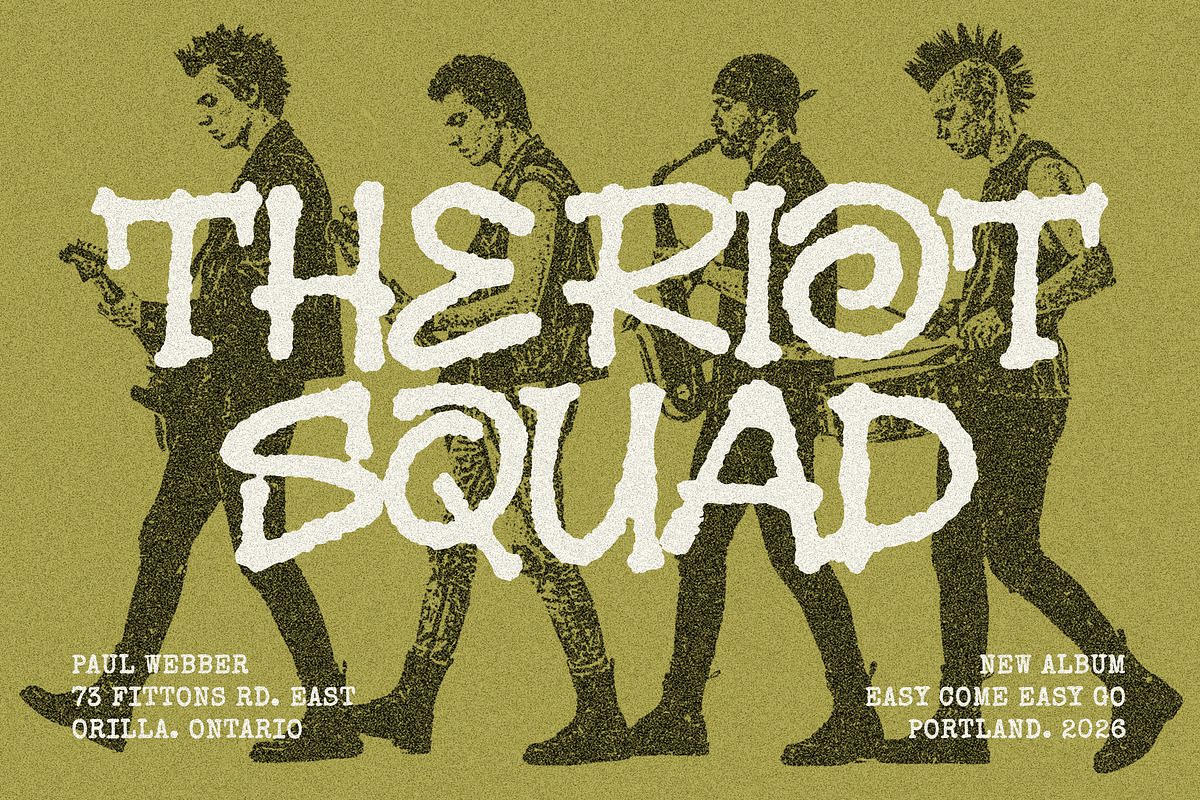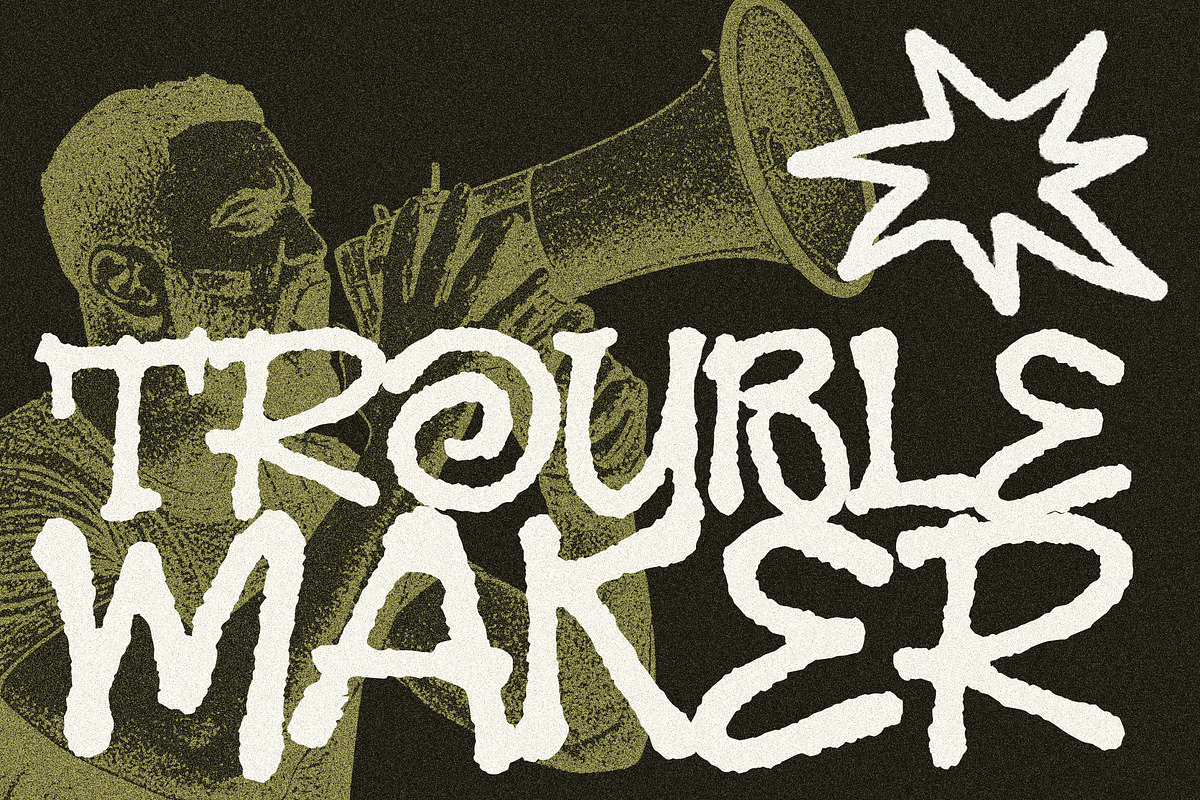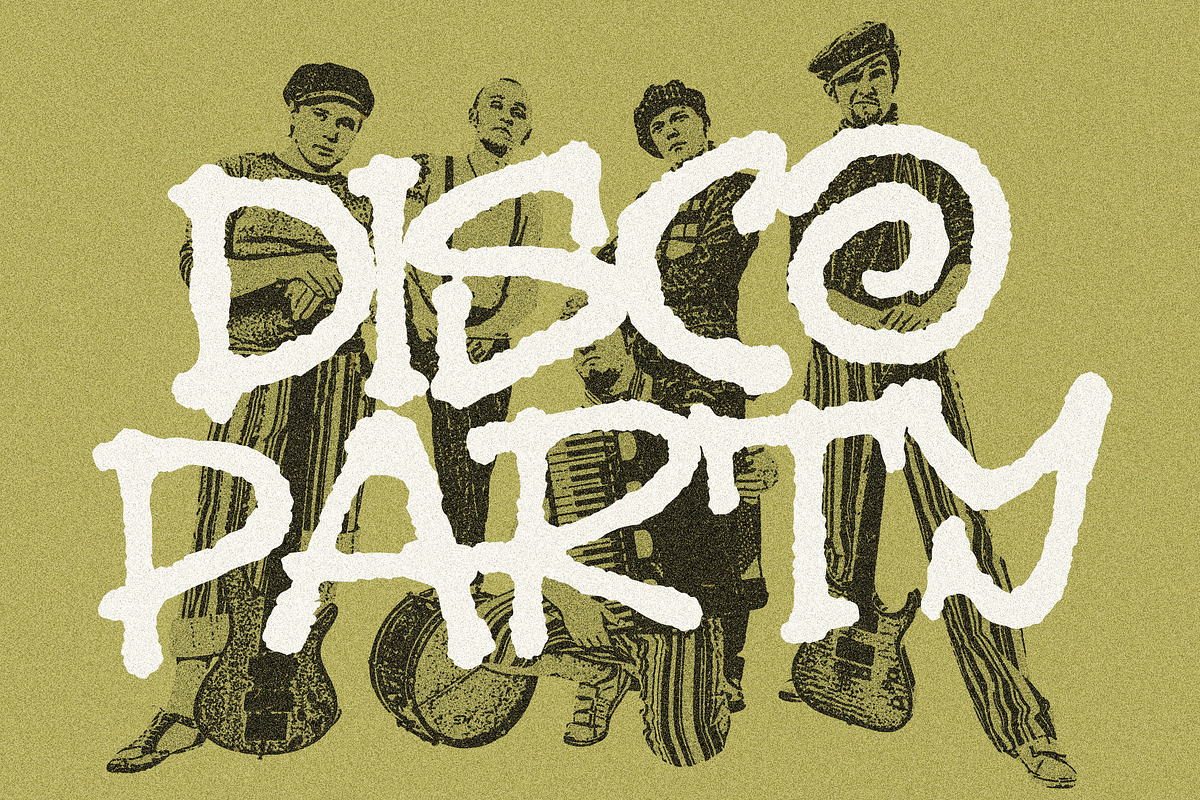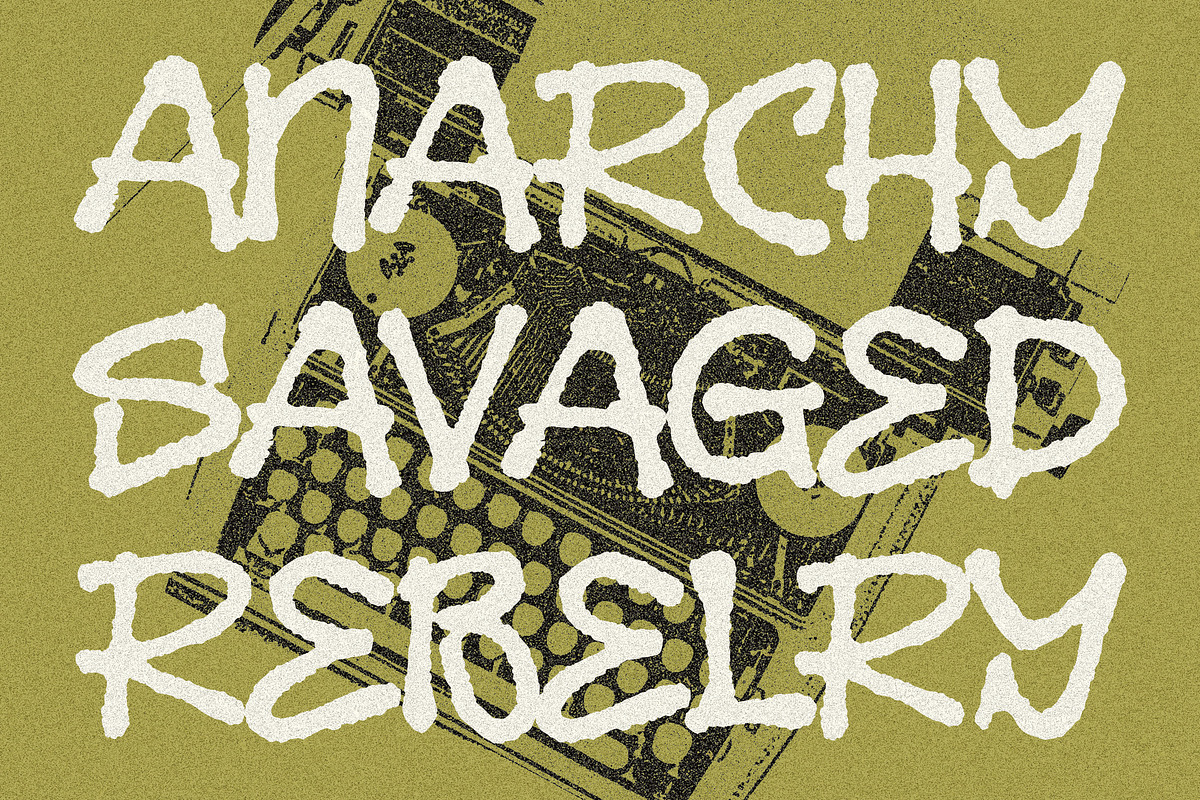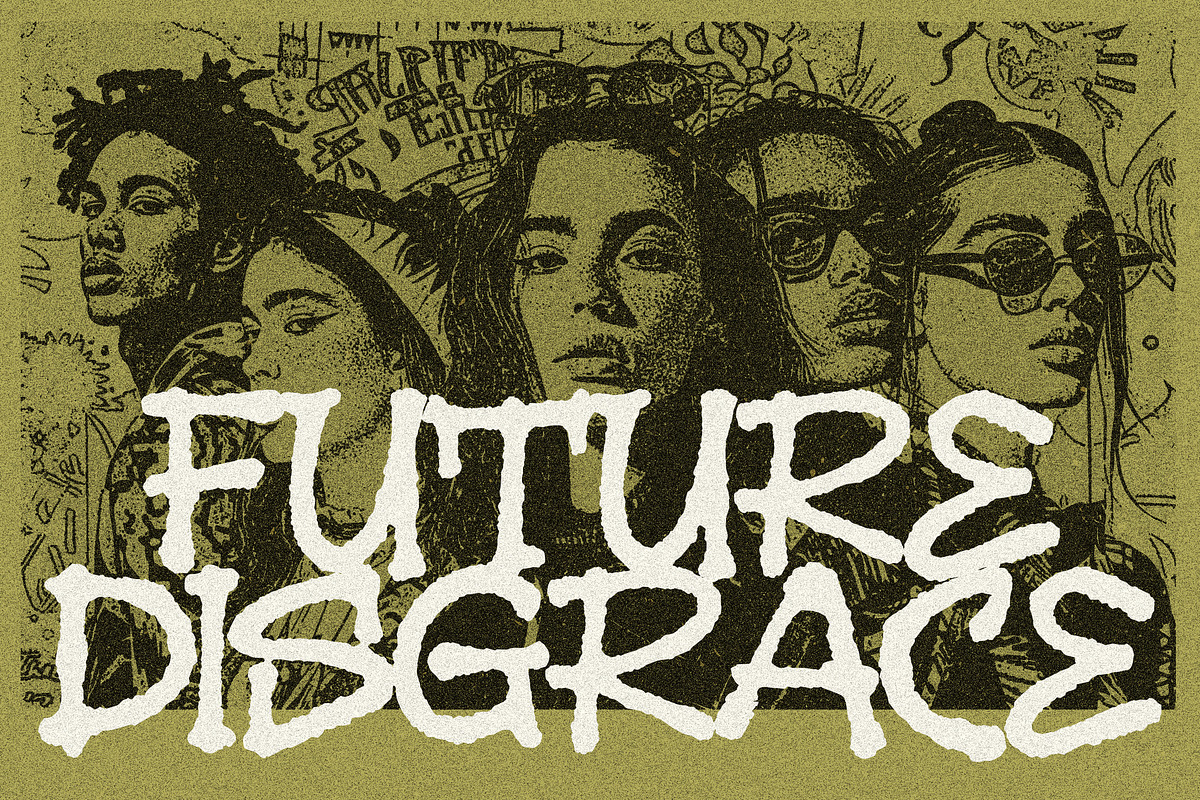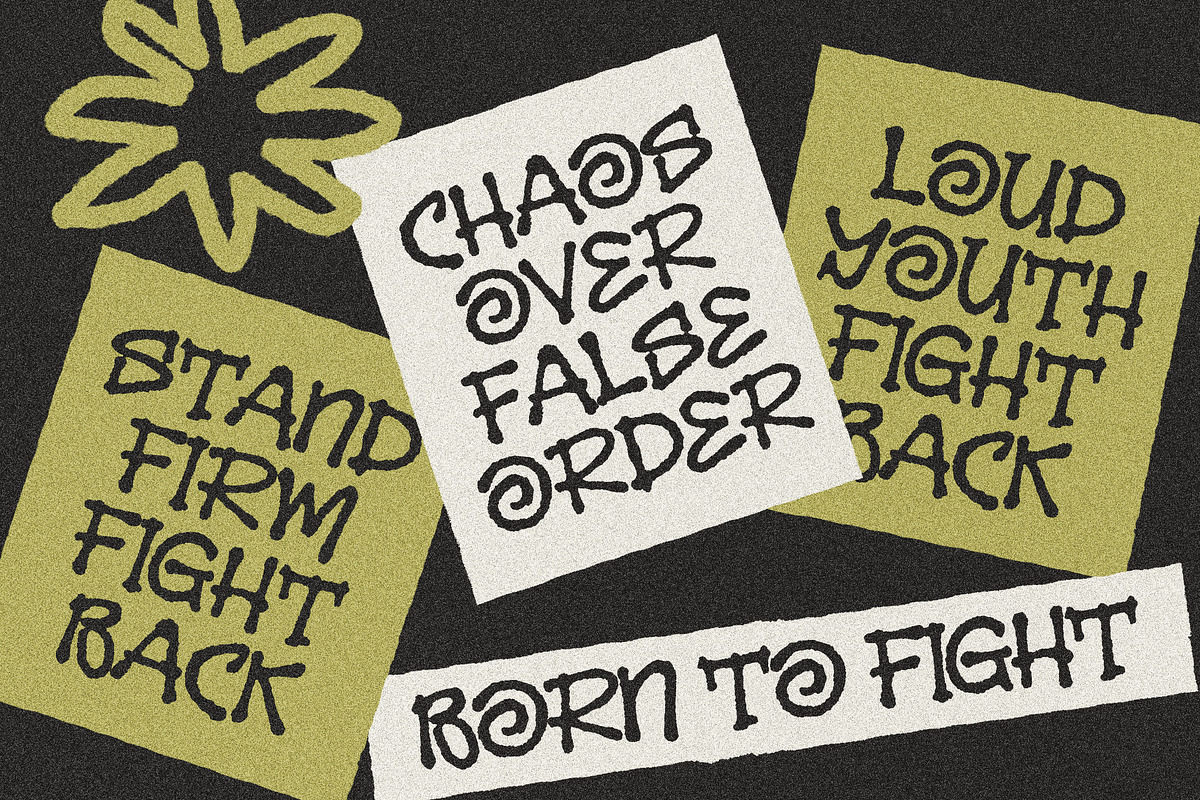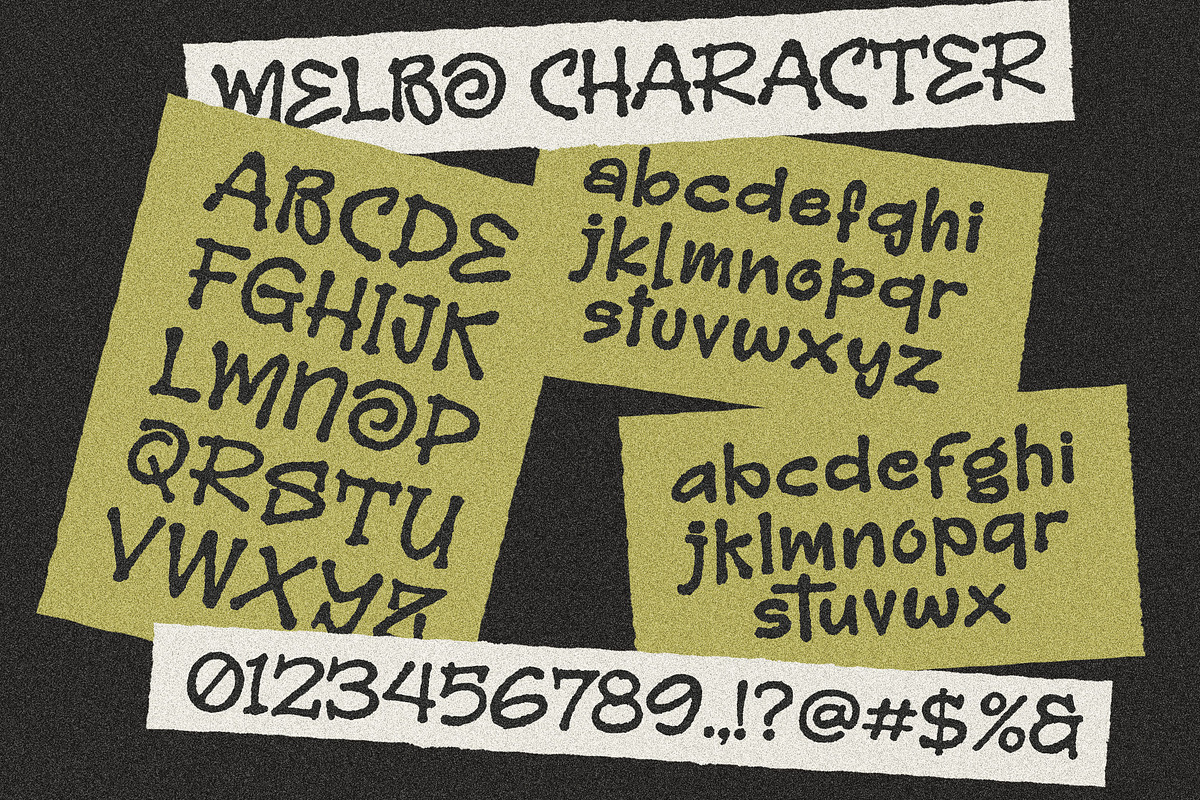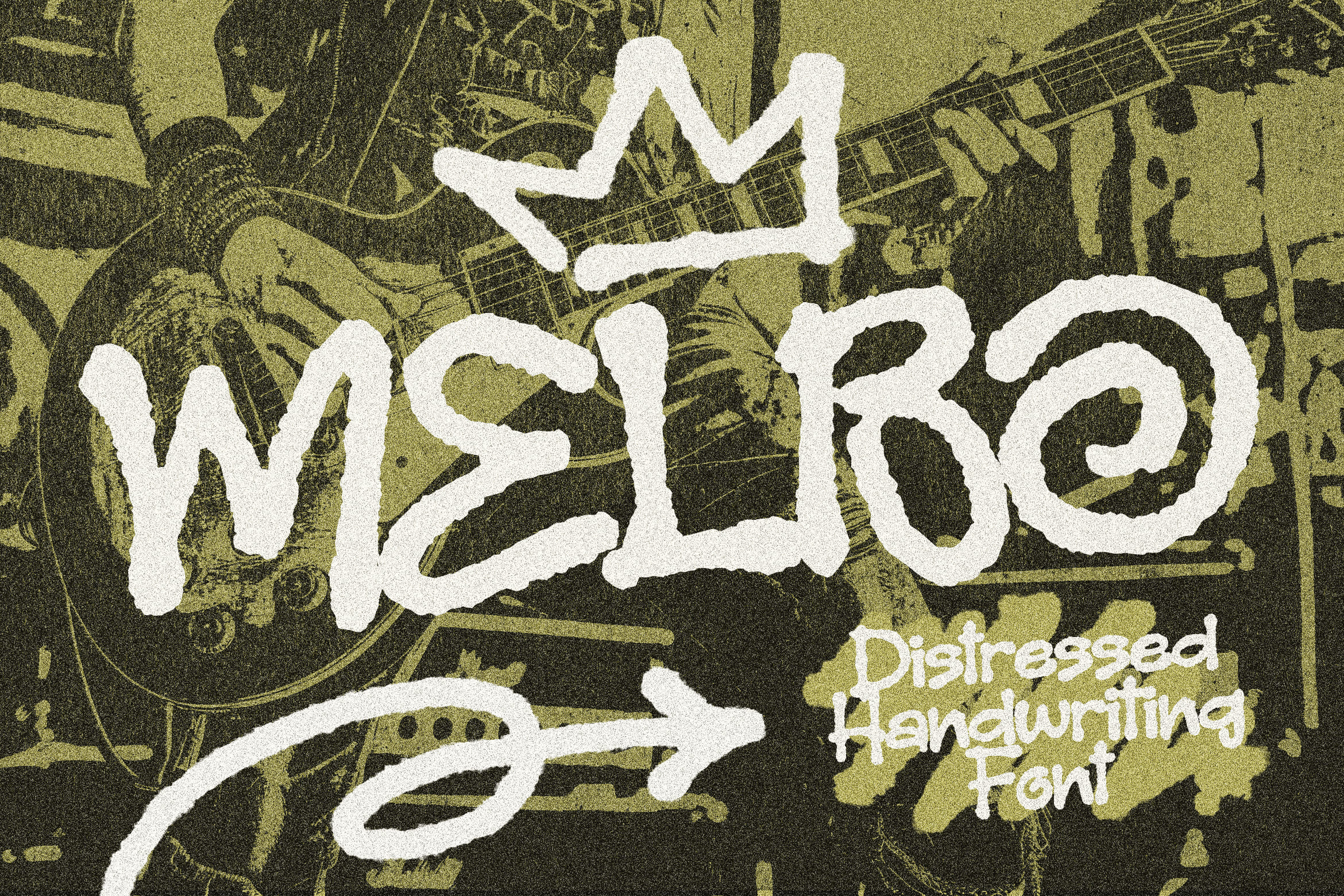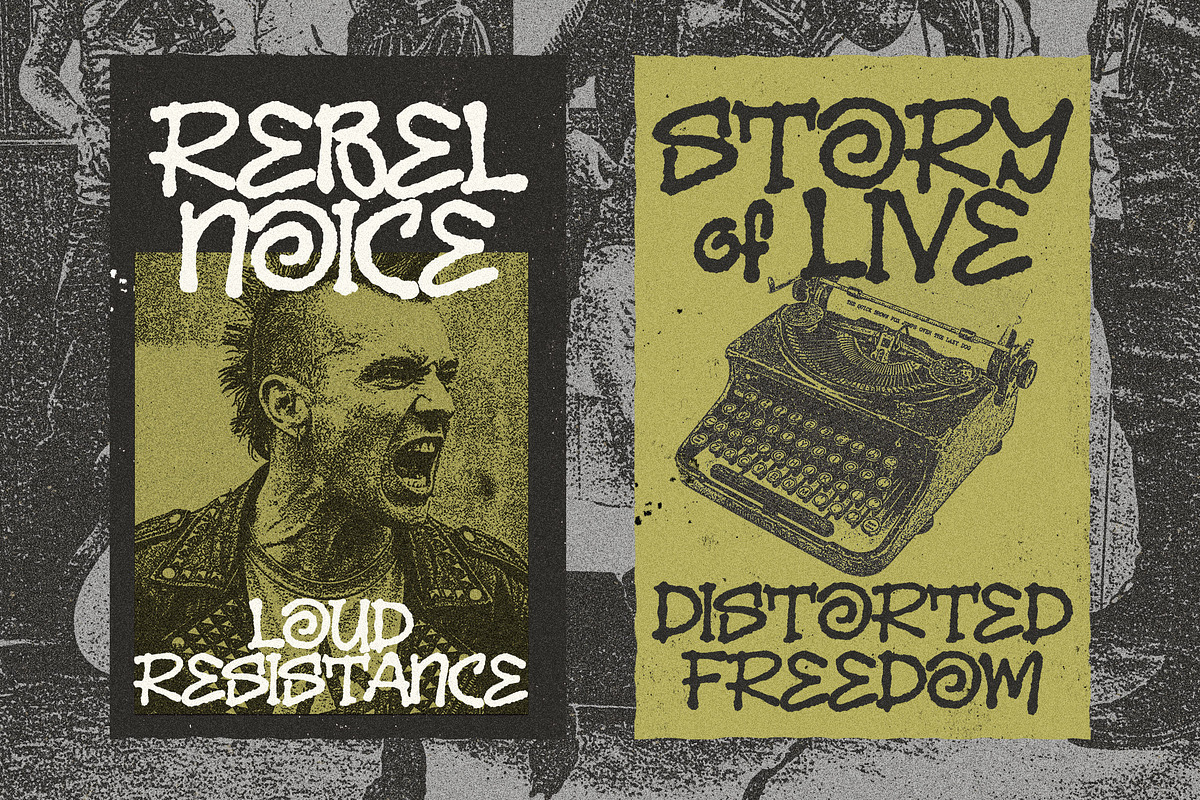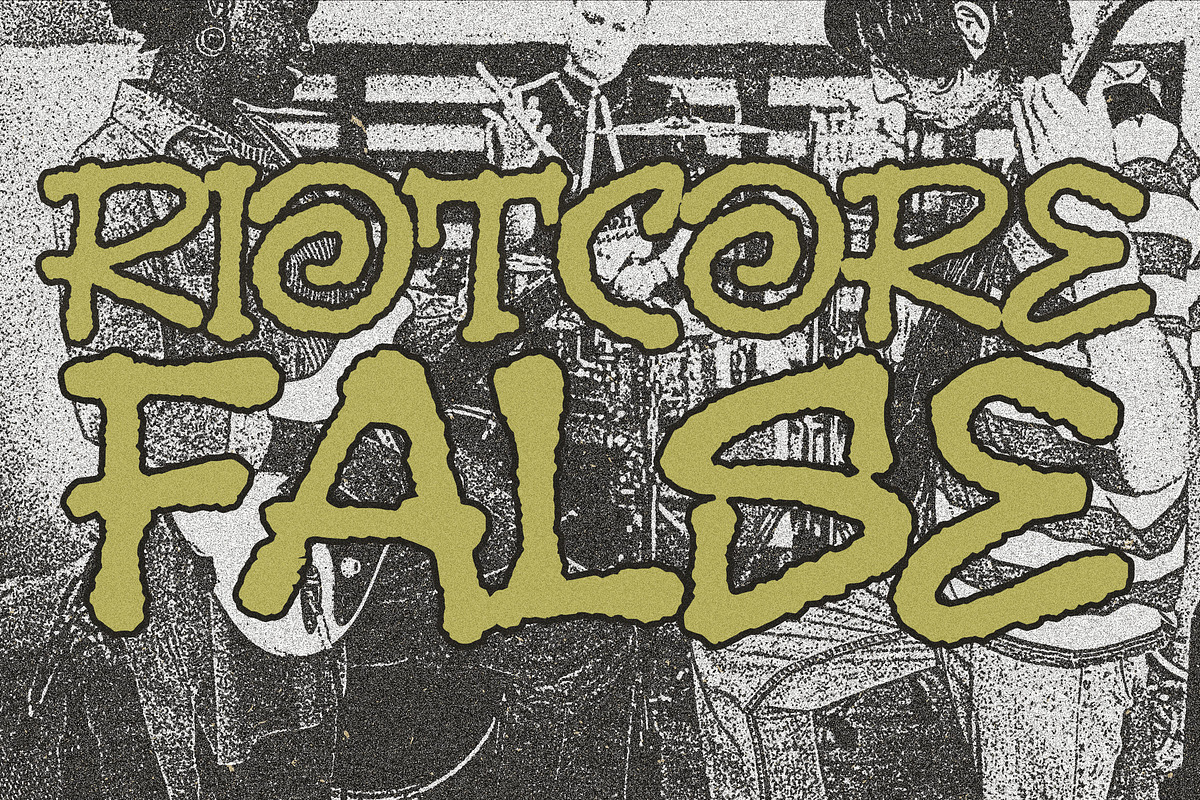
MELBO – Distressed Handwriting Font
MELBO is a bold, distressed handwriting font inspired by raw punk energy, underground zines, riot posters, and DIY street culture. It captures the feeling of thick marker strokes scrawled across city walls loud, unapologetic, and full of attitude.
This is not a clean or polished typeface. MELBO embraces imperfection, texture, and expressive chaos to create a powerful visual statement.
Style & Personality
- Distressed and rough texture
- Hand-drawn marker aesthetic
- Bold, expressive, and aggressive strokes
- Punk, grunge, hardcore, and underground vibe
- DIY zine and protest poster feel
- Every letter feels alive—imperfect in the best way.
- Punk & hardcore concert posters
- Album covers and band merchandise
- Streetwear branding
- Youth fashion labels
- Skate and urban culture projects
- Zines and alternative editorials
- Bold social media graphics
- Statement typography designs
If your audience lives in the world of independent music, rebellious fashion, street culture, or edgy branding, MELBO speaks their language instantly.